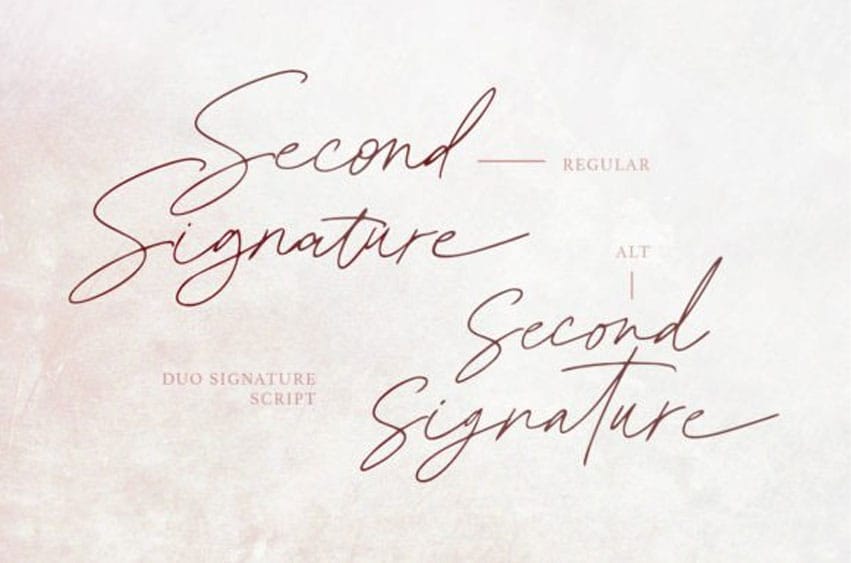
Second Signature Font is an elegant handwritten font that is perfect for creating stylish, sophisticated designs.
It features smooth, graceful curves and unique letterforms, creating a beautiful and timeless look. Perfect for creating a touch of elegance on any project.